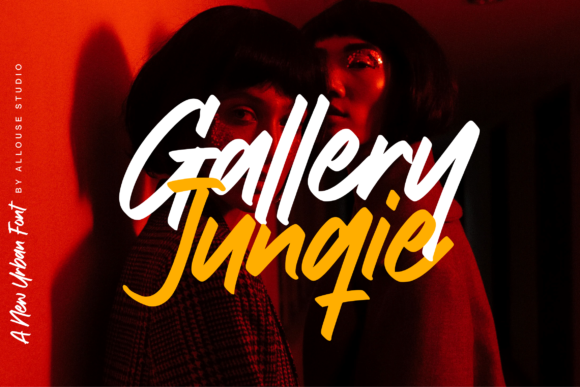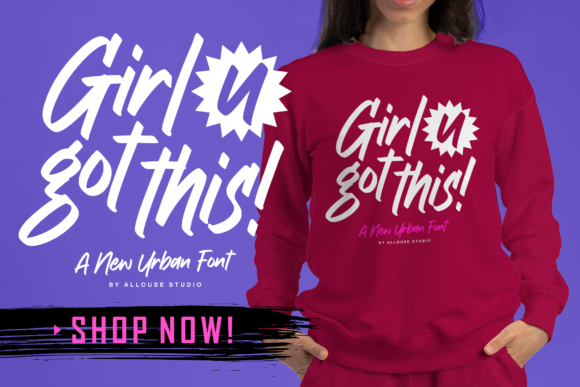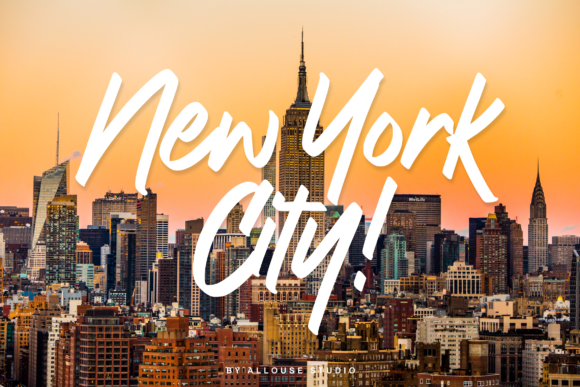
Introduction to Originthink Font
Have you ever been brainstorming a creative project, pouring over design resources and finally stumbling upon the perfect font to bring your vision to life? For designers, this moment is a thrilling combination of relief and excitement. It’s the moment when all the pieces fall into place, and the project starts to feel truly cohesive. One such font that can elevate your design to the next level is the Originthink Font, a casual and urban styled display font that’s perfect for product packaging, branding projects, and more.
As a valuable design resource, Originthink Font offers a unique blend of style and versatility, making it an ideal choice for designers looking to add a touch of sophistication to their work. Whether you’re working on a magazine, social media campaign, or wedding invitation, this high-quality font is sure to impress. And the best part? You can download it for free, making it an accessible addition to any creative project.
Key Features of Originthink Font
- Unique, modern font style with a transparent background, ideal for graphic design and digital art.
- Designed to be highly legible and versatile, suitable for use in a variety of creative contexts, from typography to branding.
Honest Review: Originthink Font
I recently came across the Originthink Font while searching for a high-quality design resource for a creative project. I was impressed by the wide range of styles and fonts available for free download, making it an excellent choice for designers on a budget.
What works well: ✨ The font’s versatility and adaptability to different design applications is a major plus. The transparent background option also makes it easy to use in various design contexts. Additionally, the font’s high quality is evident in its crisp and clear lines.
Some limitations: ⚠️ While the font offers a wide range of styles, it may not be suitable for every design project. Some users may find the font’s design to be a bit too minimalist or too bold, depending on their personal preferences. Furthermore, the font’s support for certain languages may be limited.
Overall, I would recommend the Originthink Font to designers looking for a reliable and high-quality design resource. Its free download option and transparent background make it an excellent choice for creative projects.
- Wide range of styles and fonts available
- High-quality design and crisp lines
Tips for Getting the Most Out of Originthink Font
Use the Originthink Font in conjunction with a transparent background to create a sleek and modern design look. Experiment with different font sizes and styles to add depth and visual interest to your project. The Originthink Font is a great resource for designers and creatives working on high-quality design projects.
The Originthink Font is ideal for use in design projects that require a high-quality, professional font. Some common use cases include:
– Business presentations and reports
– Marketing materials, such as brochures and flyers
– Web design projects, such as websites and landing pages
– Print design projects, such as business cards and posters